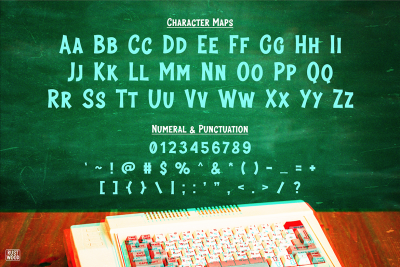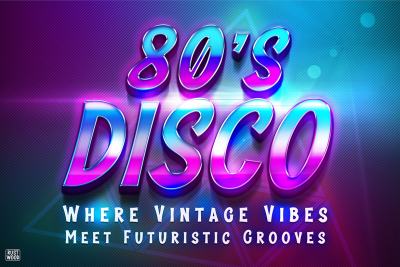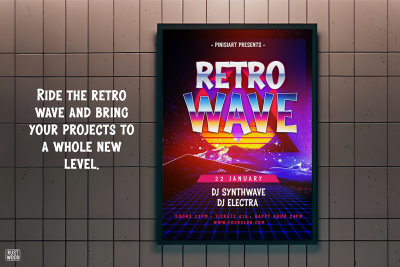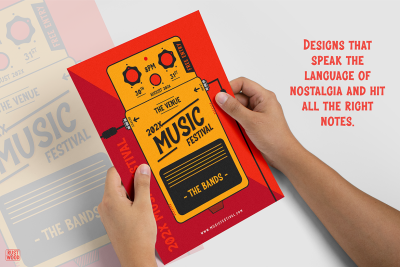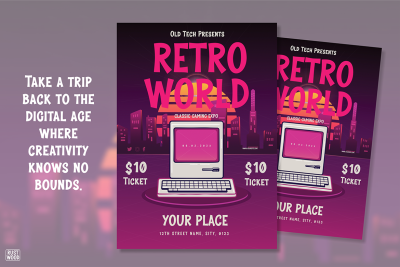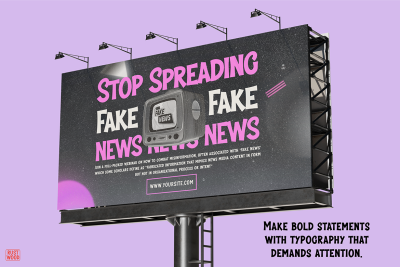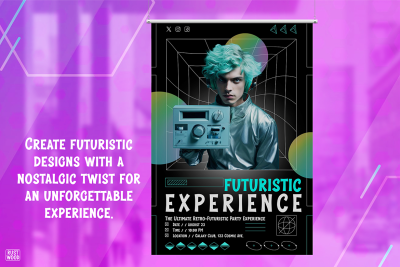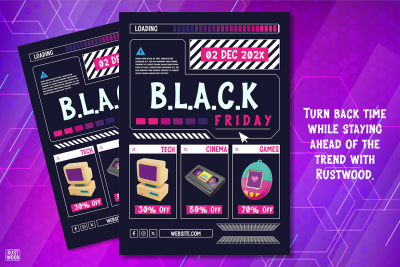
Retro Font Rustwood grabs attention with its bold, handcrafted style. It combines vintage appeal with a modern edge, making it perfect for a range of creative projects. This font stands out thanks to its rugged texture and carefully designed letters, which bring a sense of authenticity to your designs. The bold strokes and imperfect edges give Rustwood a unique and genuine feel, ideal for both print and digital mediums. Whether you’re creating logos, branding, or advertisements, Retro Font Rustwood ensures your work catches the eye.
Inspired by mid-century typography and vintage posters, this font brings a timeless aesthetic to any project. Retro Font Rustwoodโs classic style stands out, making it a top choice for designs that need a vintage twist. The rough, textured finish gives it a rustic look, adding to its handmade charm. The fontโs distinctive style works well for projects that aim to create a connection through authenticity and craftsmanship.
Who is Retro Font Rustwood Suitable For?
Retro Font Rustwood is perfect for designers, branding experts, and marketers who want to create a unique, nostalgic design. It fits well in logo design, branding campaigns, and product packaging. This font works particularly well for businesses like coffee shops, breweries, and handmade product brands. If you’re aiming to evoke a sense of tradition and craftsmanship in your design, Rustwood is the right choice.
For personal projects, Retro Font Rustwood shines as well. Use it for invitations, greeting cards, and custom artwork. It brings a unique touch to personal designs, giving them a nostalgic feel. Social media creators can also make use of the font, as it works great for creating eye-catching posts that capture the vintage vibe. Whether you’re designing a promotional flyer or an Instagram post, Rustwood will make your visuals stand out.
If you are working in an industry that values storytelling and heritage, Retro Font Rustwood fits perfectly. Its handcrafted aesthetic adds authenticity to your design, making it ideal for brands that want to convey a strong, emotional connection with their audience. This font is an excellent choice for experienced designers and newcomers alike, helping elevate the quality and impact of their work.